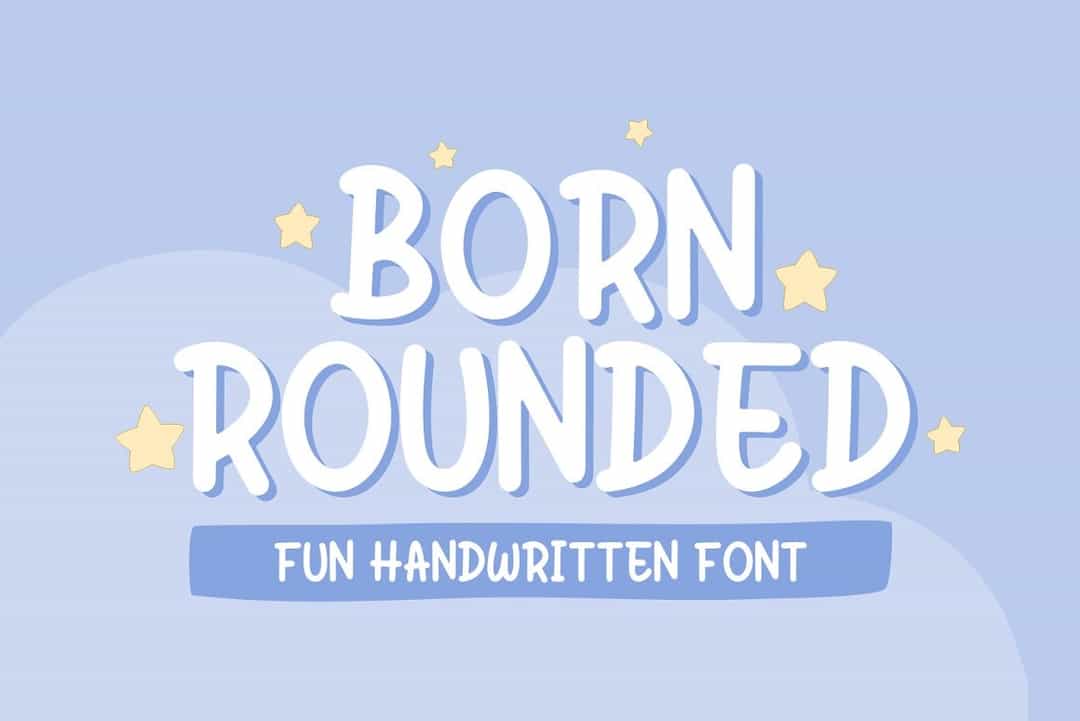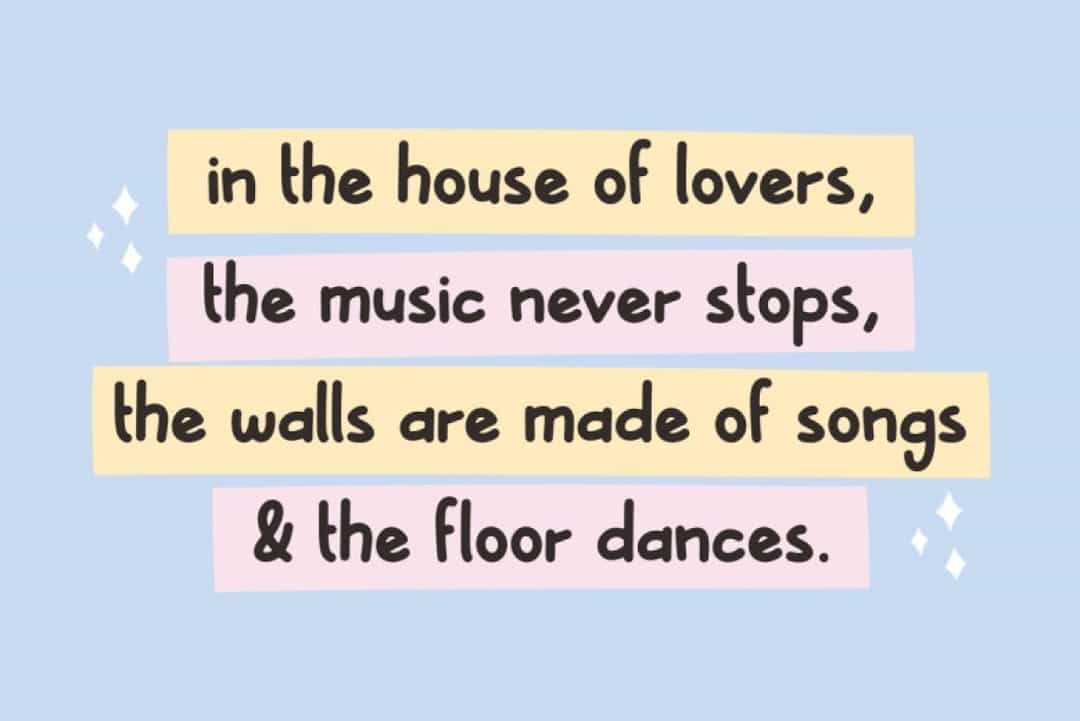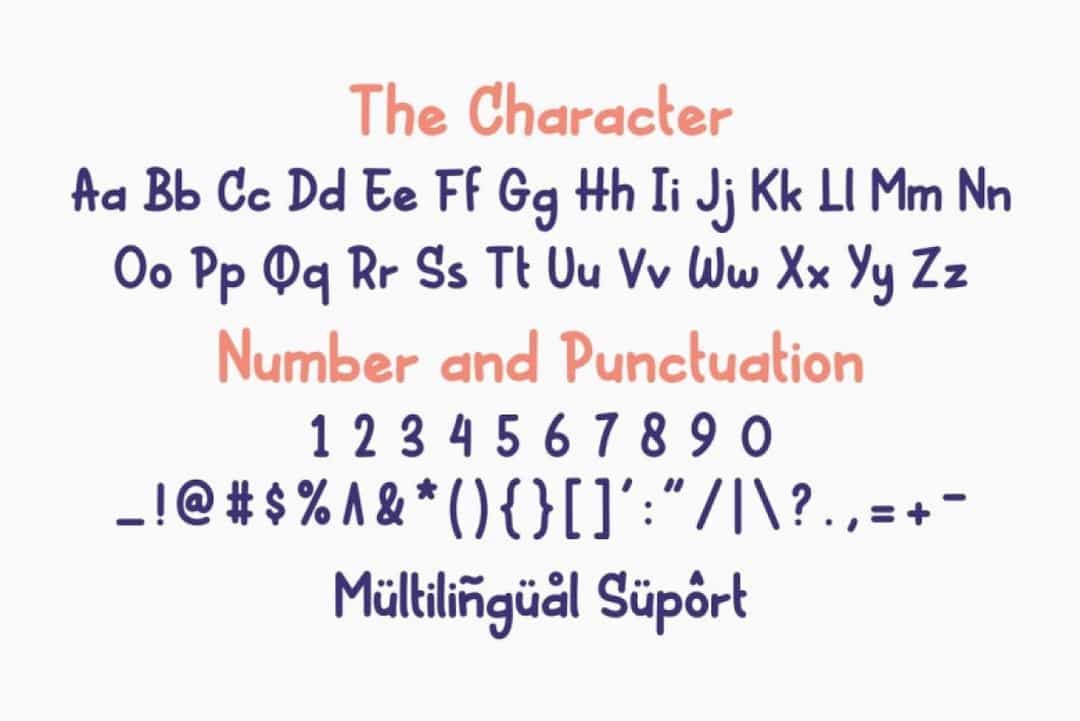
We are pleased to present The Born Rounded font by Forberas Club; an elegant and sophisticated hand-crafted font designed to draw attention to your brand and help it shine. Make your designs sparkle using this exquisite and beautiful font wherever it may be needed: logos, advertisements, headings, printed packaging, quotes or even social networking branding!